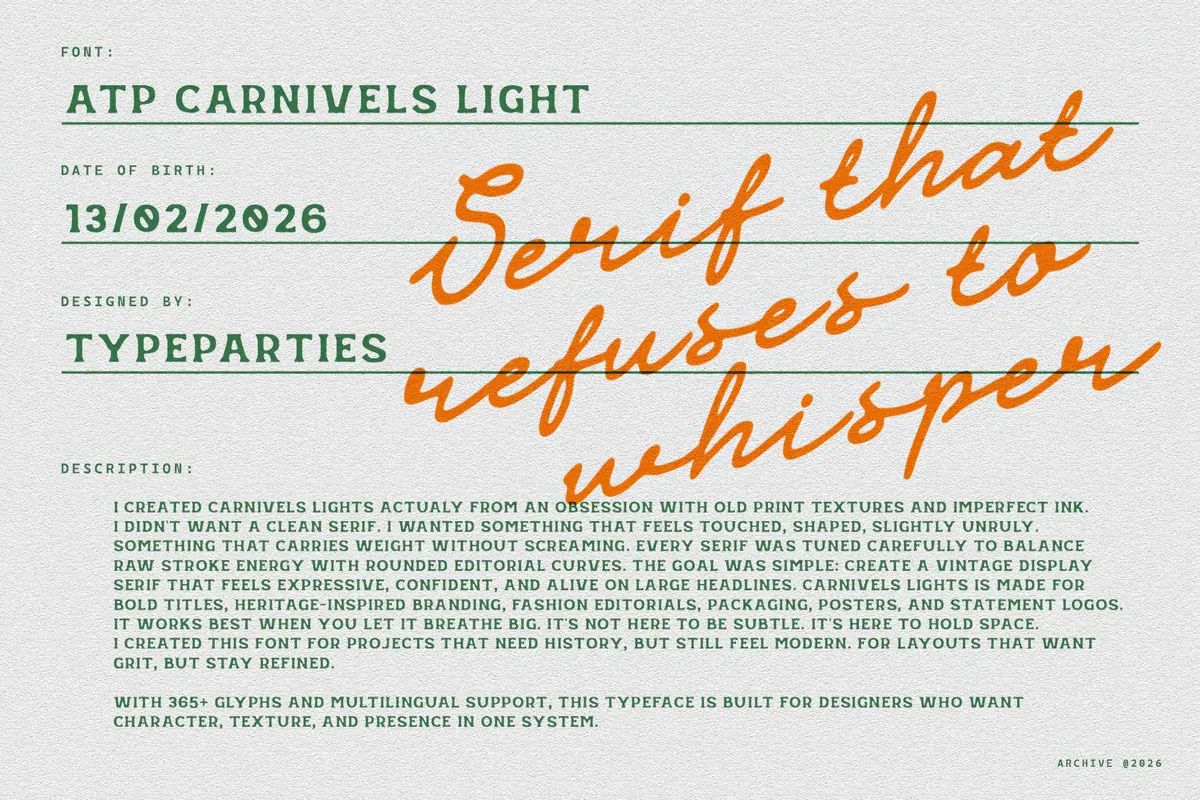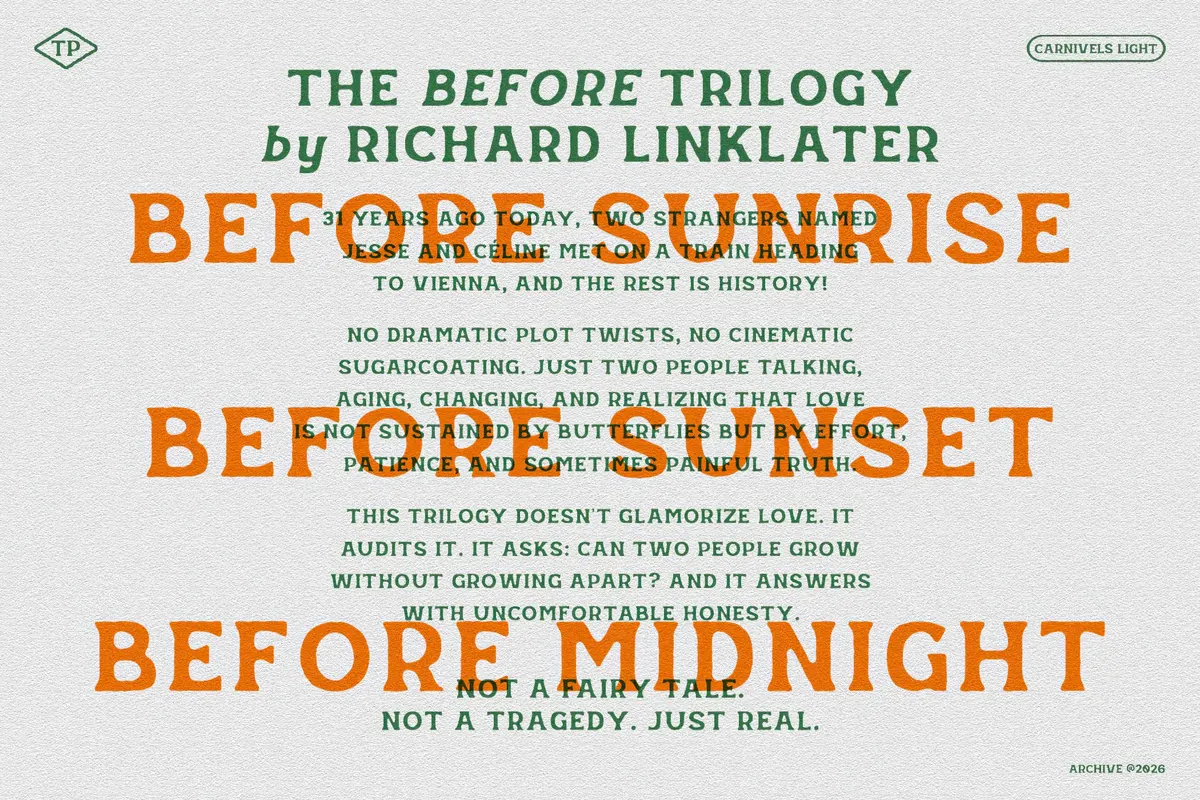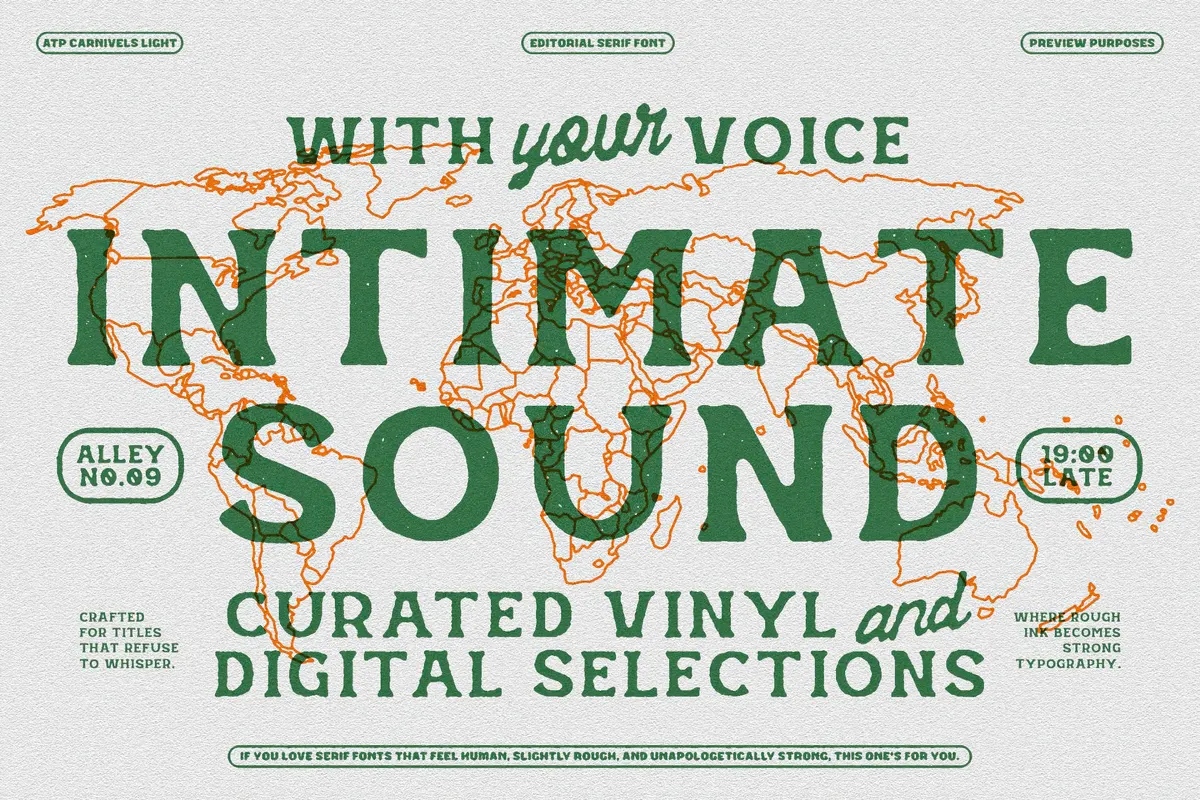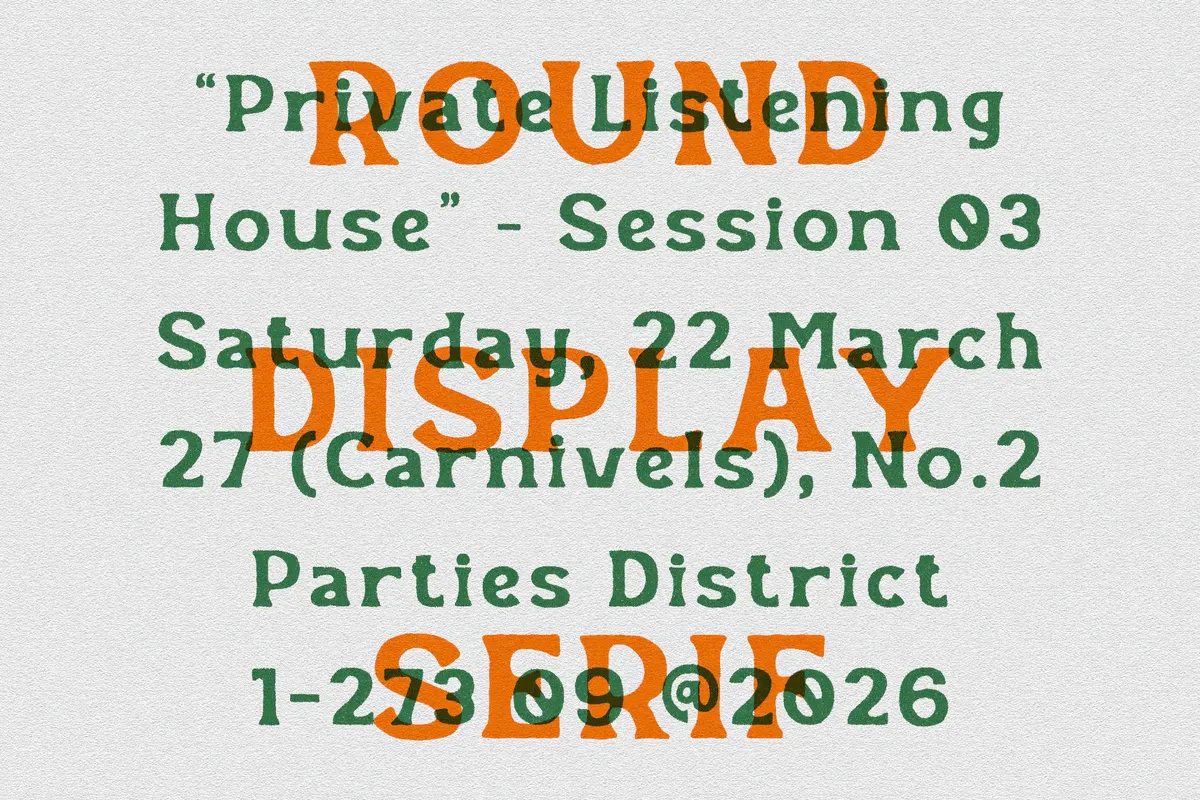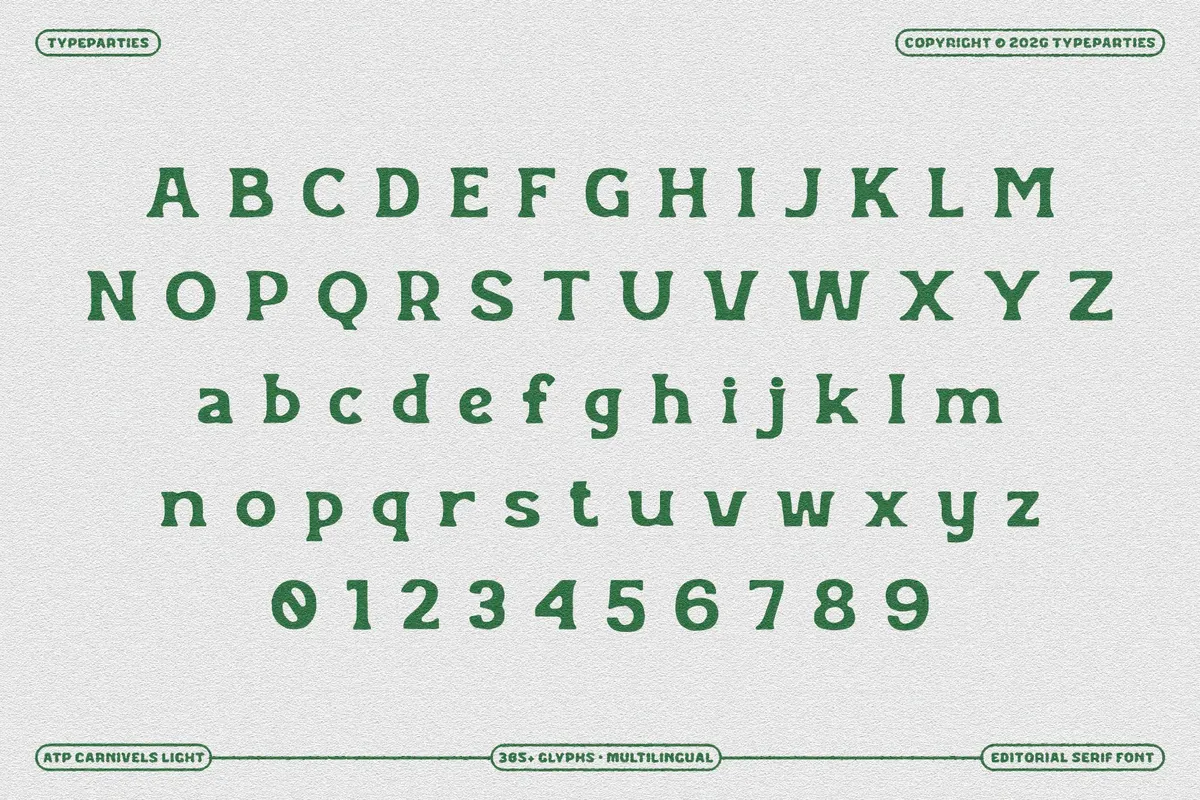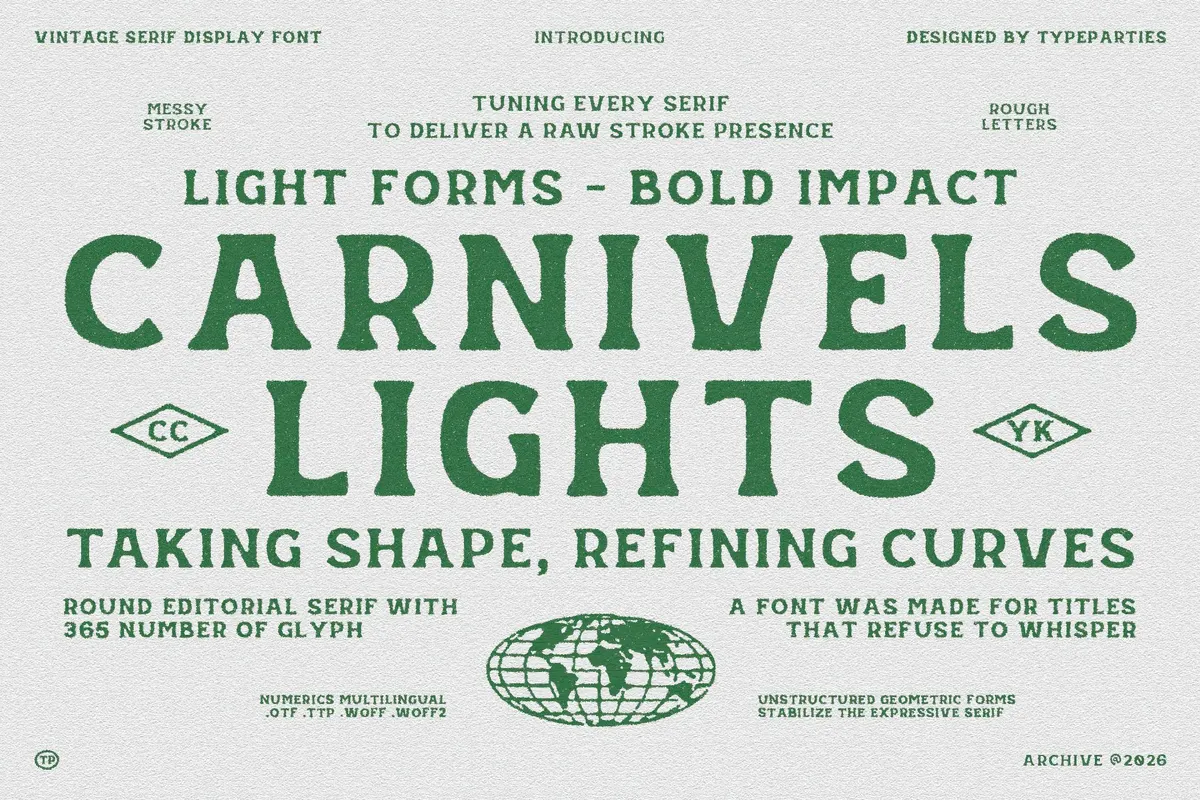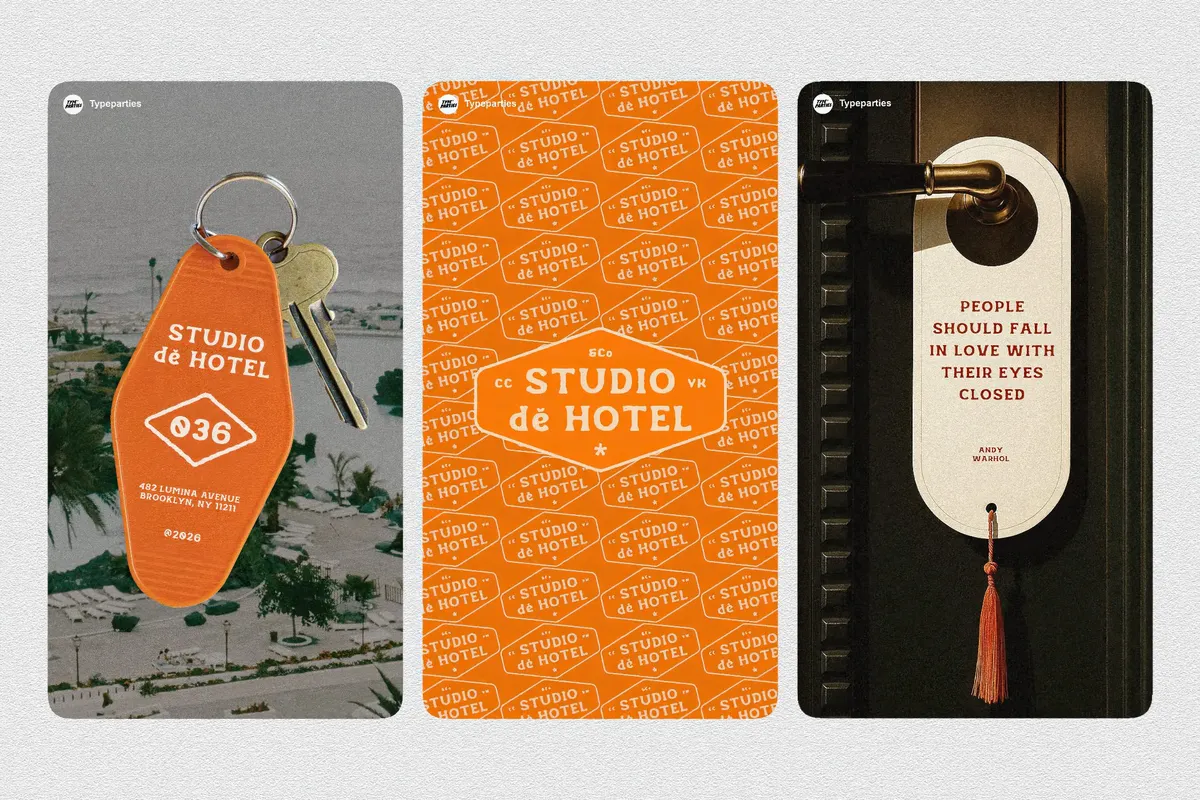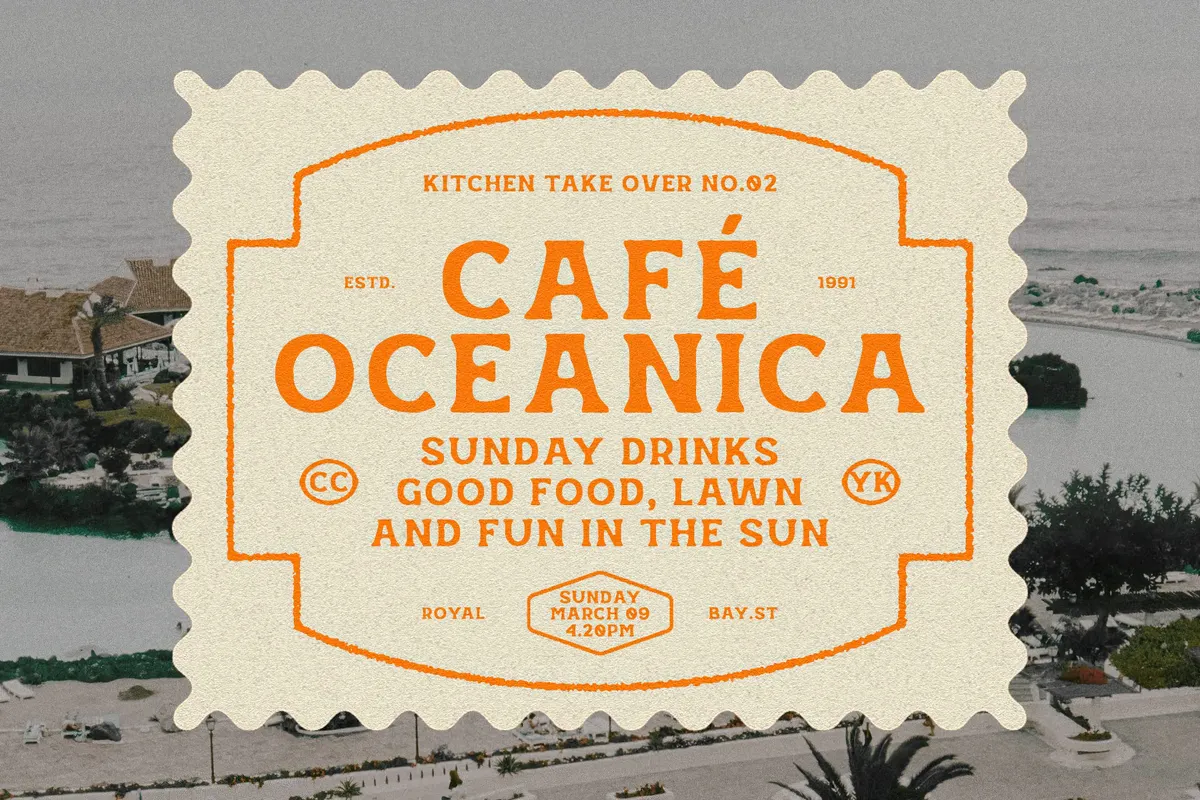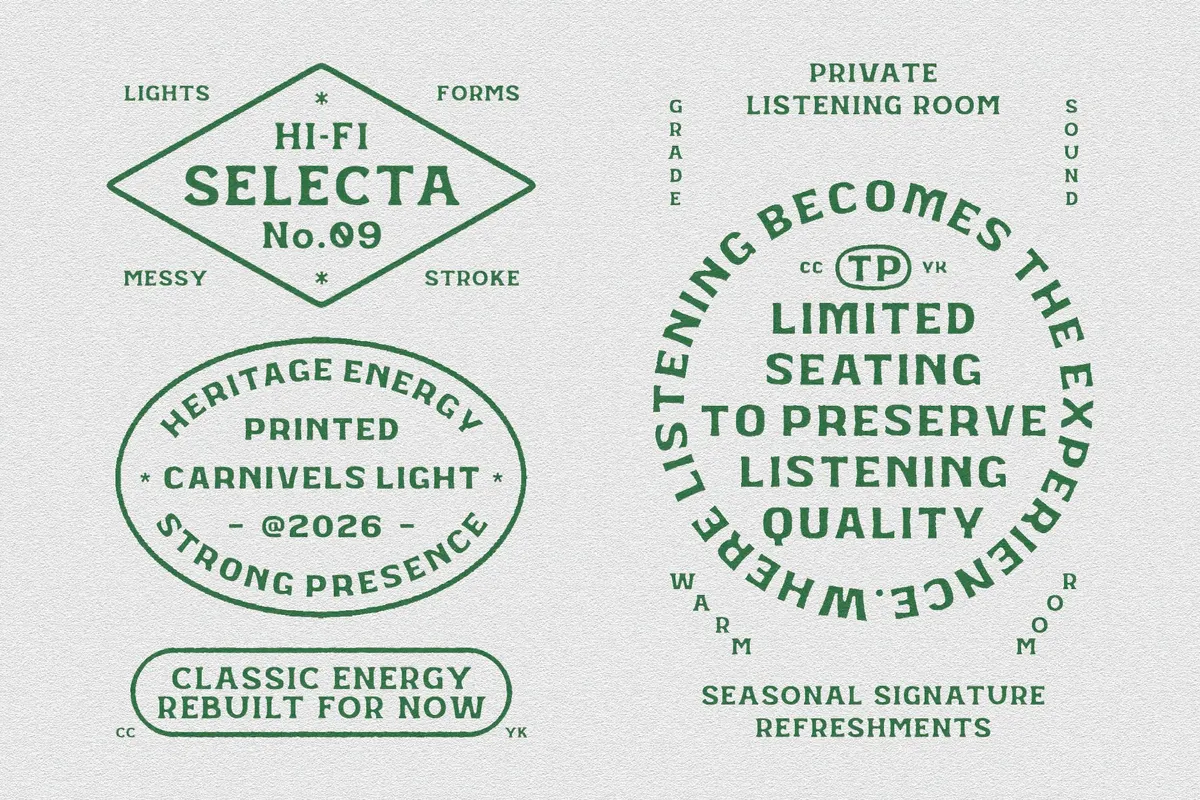
Carnivels Lights - Display Serif
Carnivels Lights
Carnivels Lights shapes each serif letter from a rounded stroke, weight staying light and even across every character. Rough, uneven edges break up the outline, giving the letterforms a hand-cut texture. The construction stays geometric underneath that texture, circular curves and straight strokes holding a stable rhythm.
Uses: poster headlines, editorial titles, packaging, branding and logotypes, and vintage-style publications.